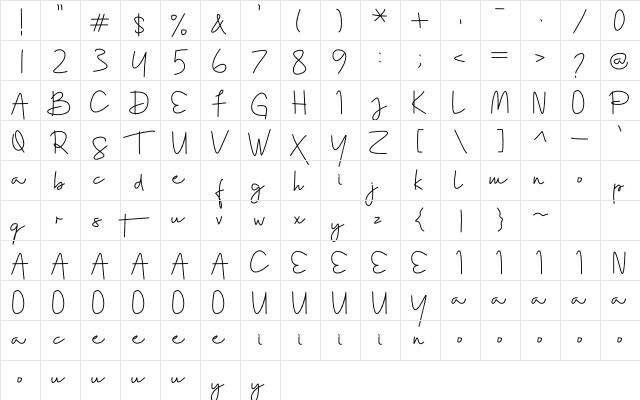
Southja Regular
Design Context for Southja Typeface
Southja is a composed and adaptable typeface that performs quietly and consistently across a wide range of design contexts.